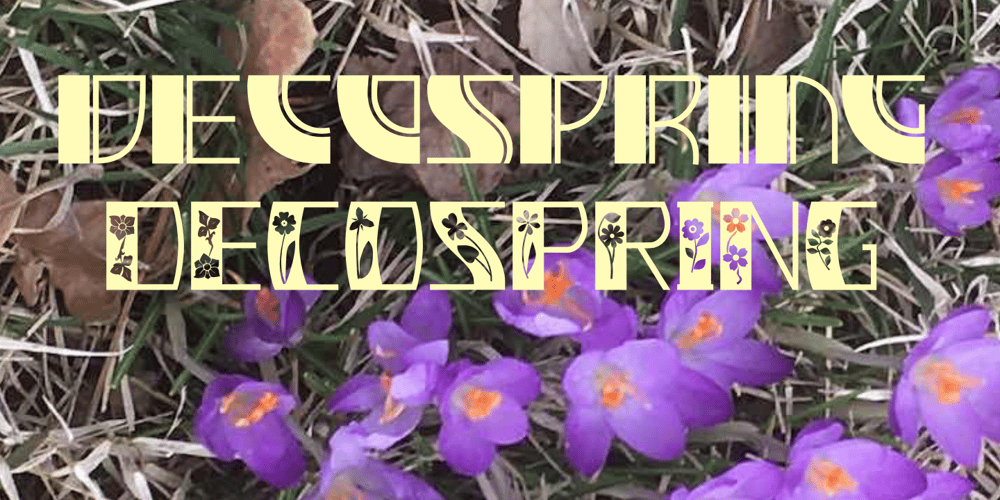
Deco Spring Font Family was designed by Robert Schenk and published by Ingrimayne Type. Deco Spring contains 8 styles and family package options. DecoSpring is a decorative art-deco family that was inspired by one word in an advertisement in a 1978 edition of my local newspaper. I could not find a typeface that matched it so decided to create one, which became DecoSpring-Regular. It is caps only, with an alternative set of capitals on the lower-case keys. Characters with very thick stems invite interior decoration and I opted for floral decorations. DecoSpring-Flowers can be used alone or it can be layered on top of the regular style to create colored flowers. Changing the width of the bolder stem resulted in two more style, the light and thin styles. Another set of four styles, the Simple set, was formed by eliminating the split in the stems by merging the two parts. All the DecoSpring faces are display faces to be used in small doses, and especially the bolder ones, at large point sizes.